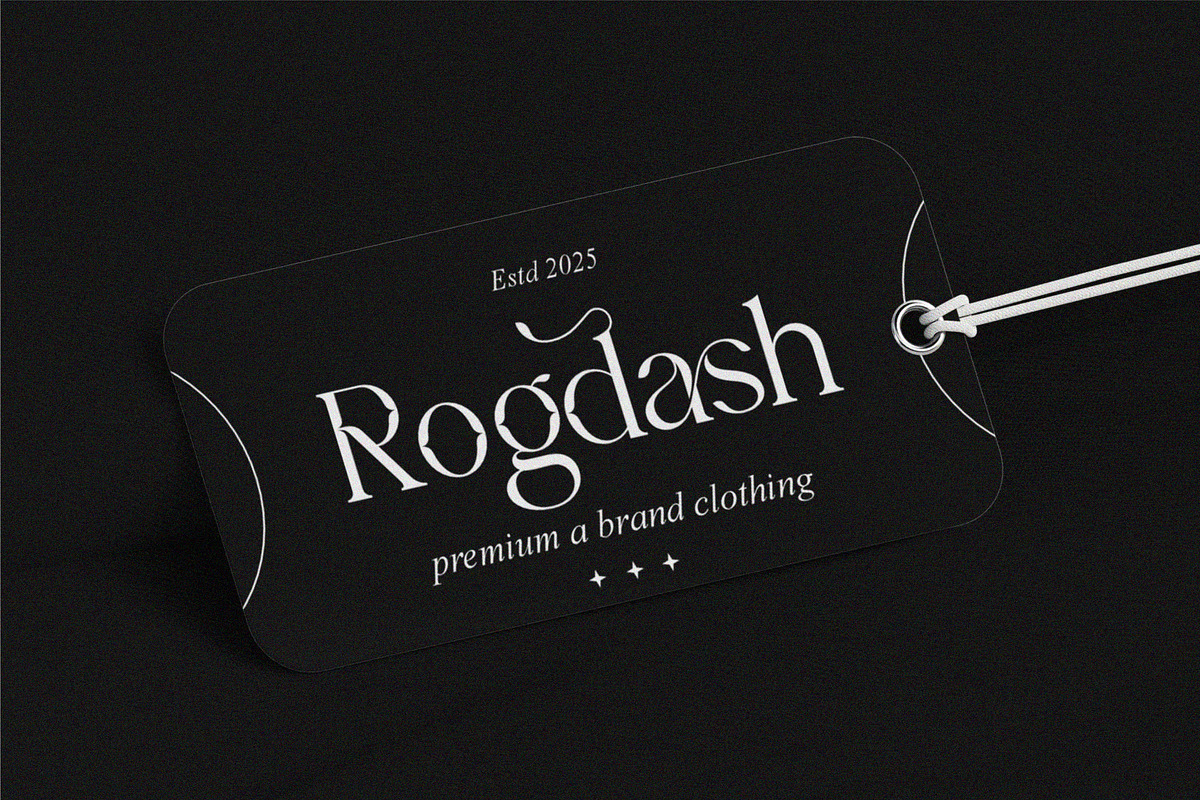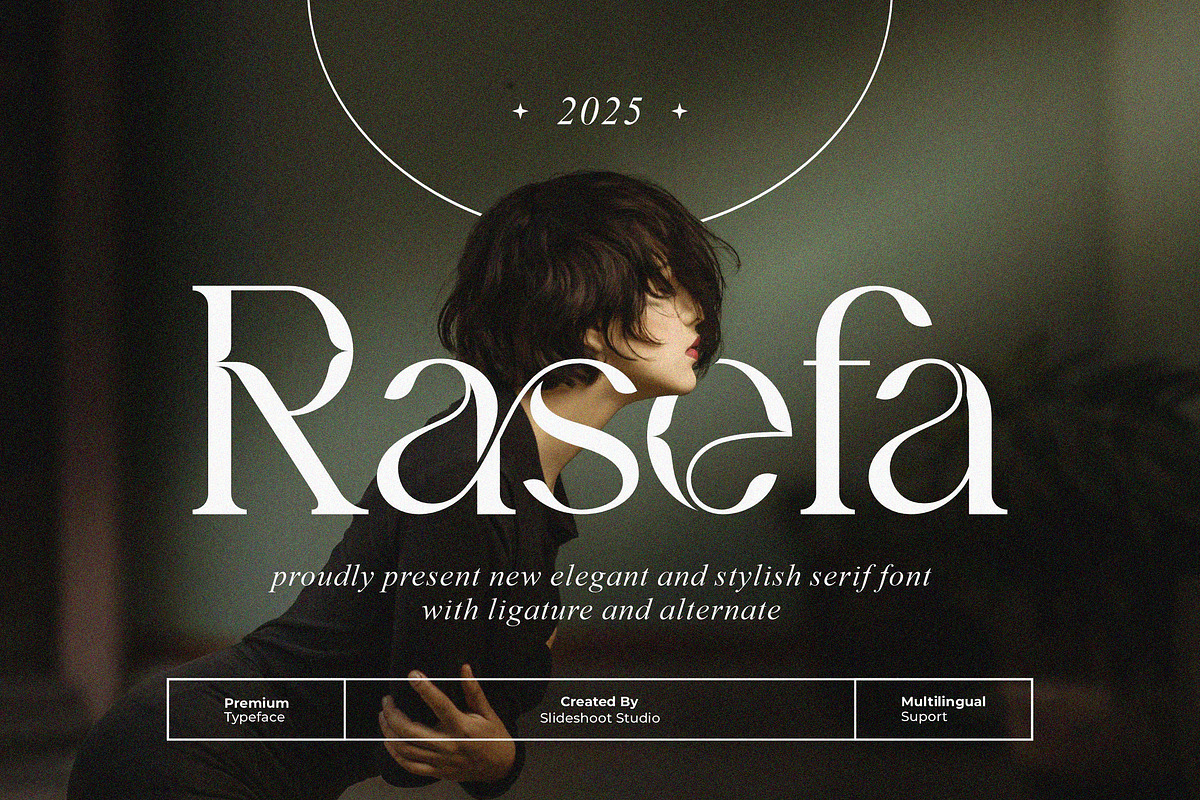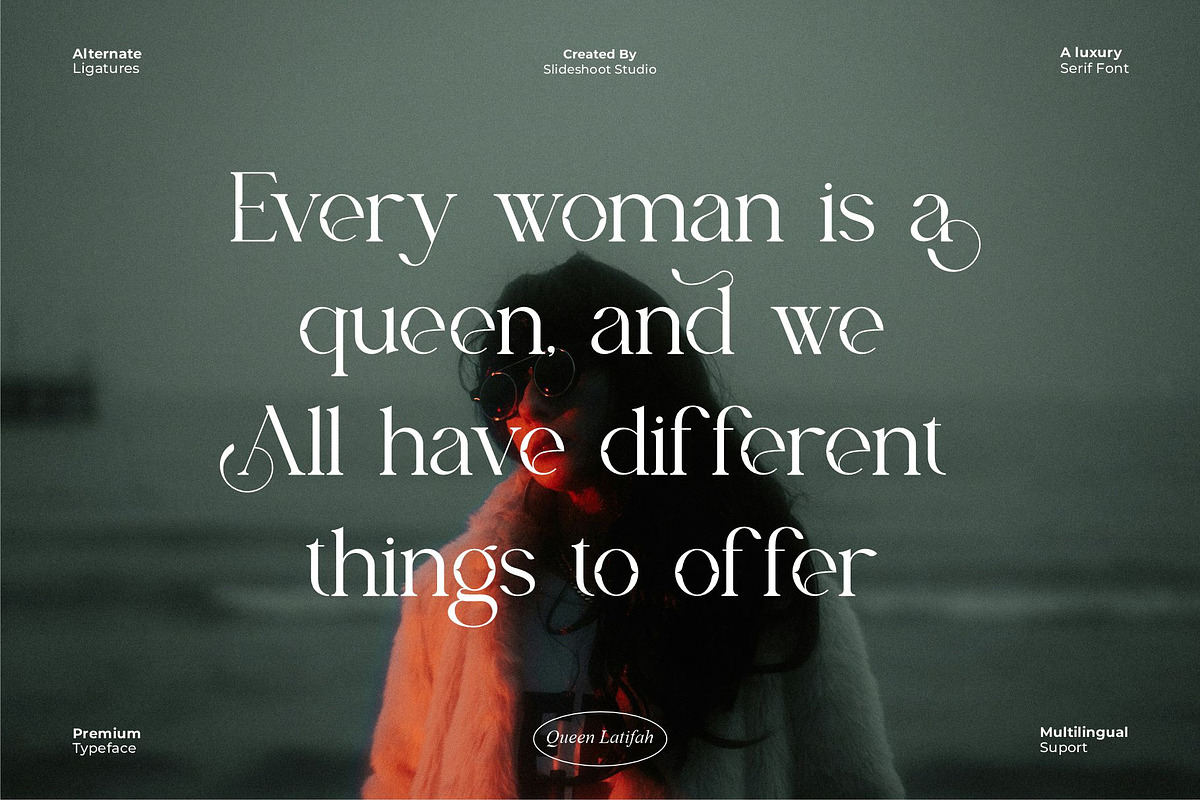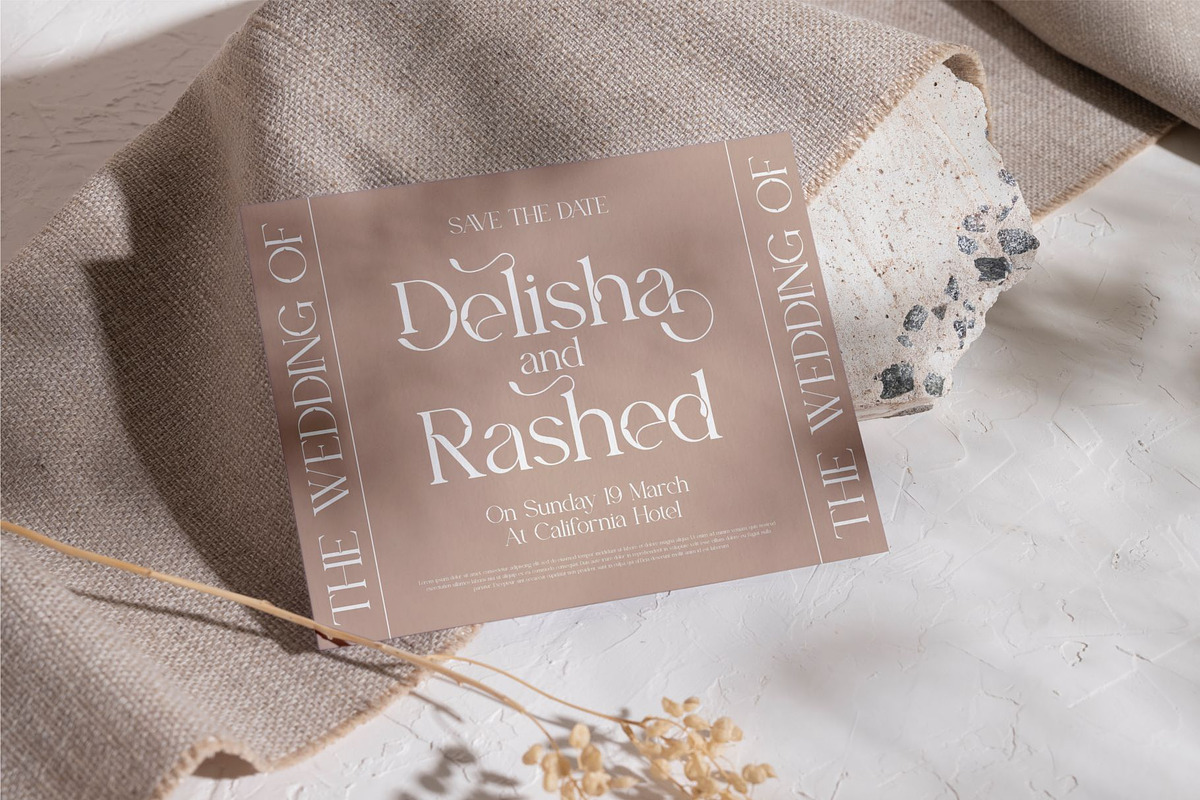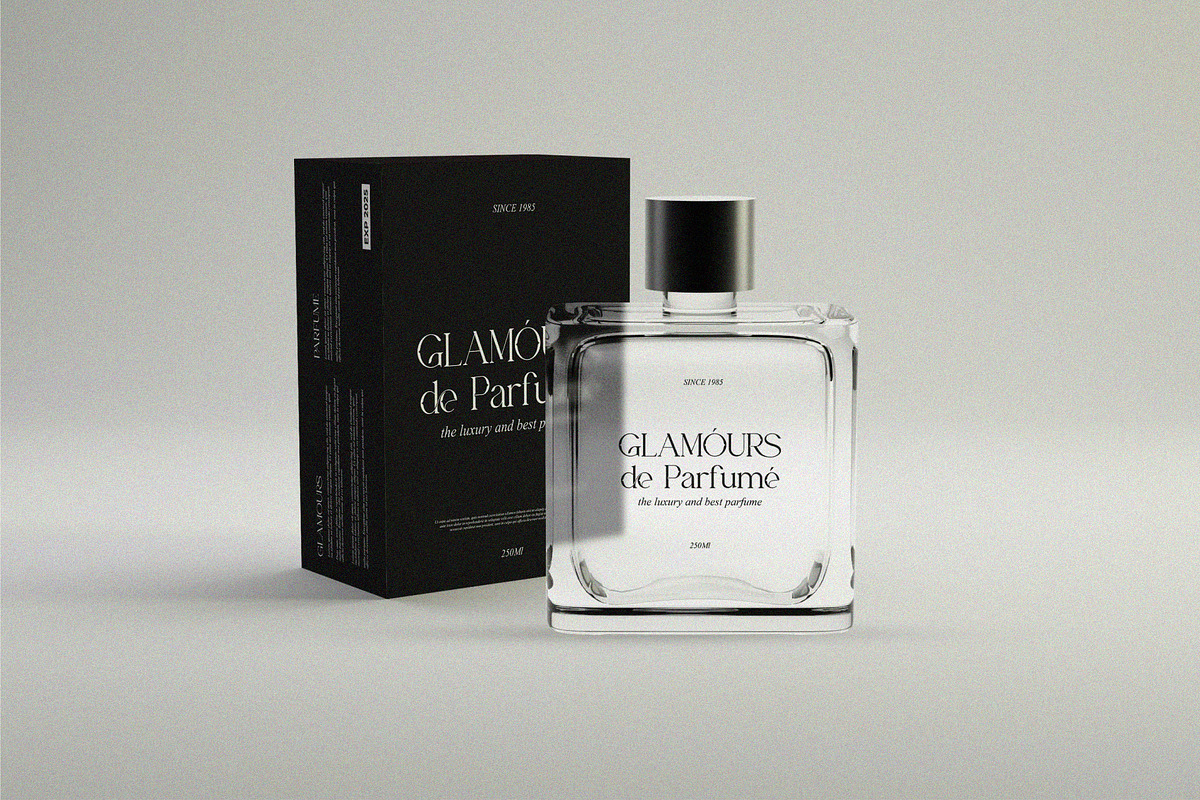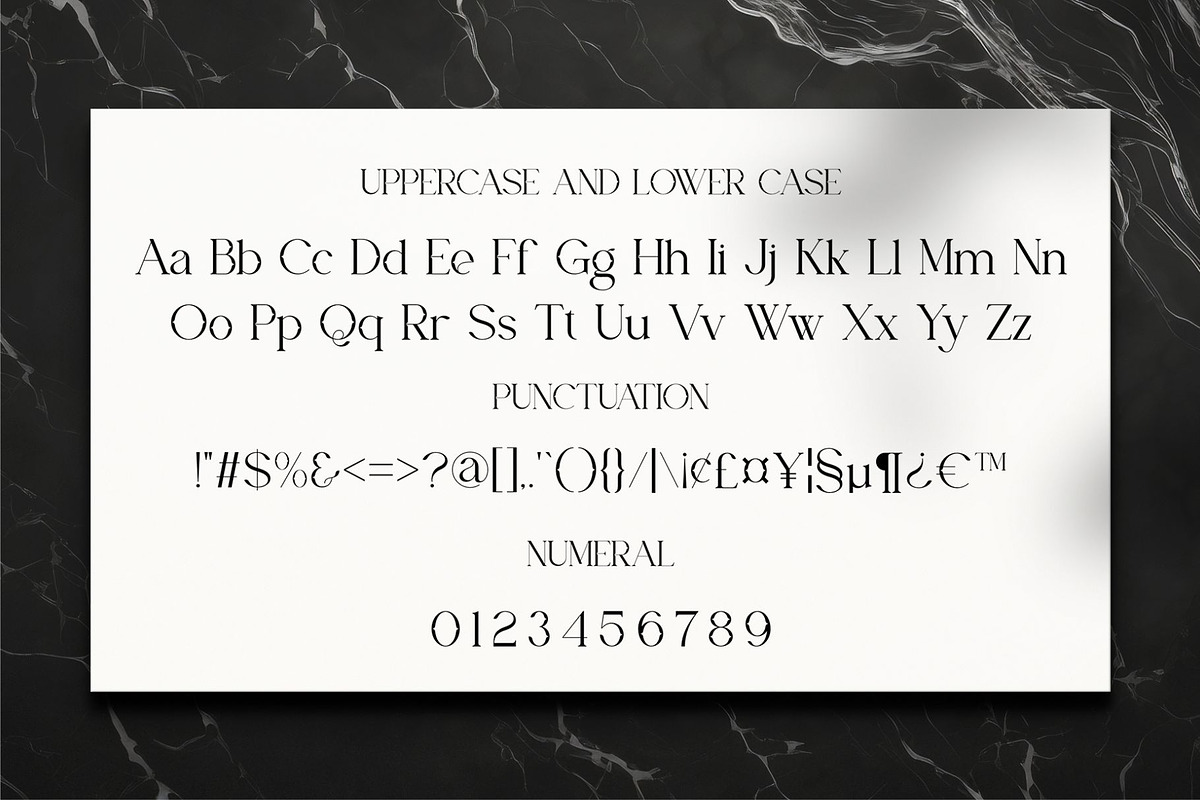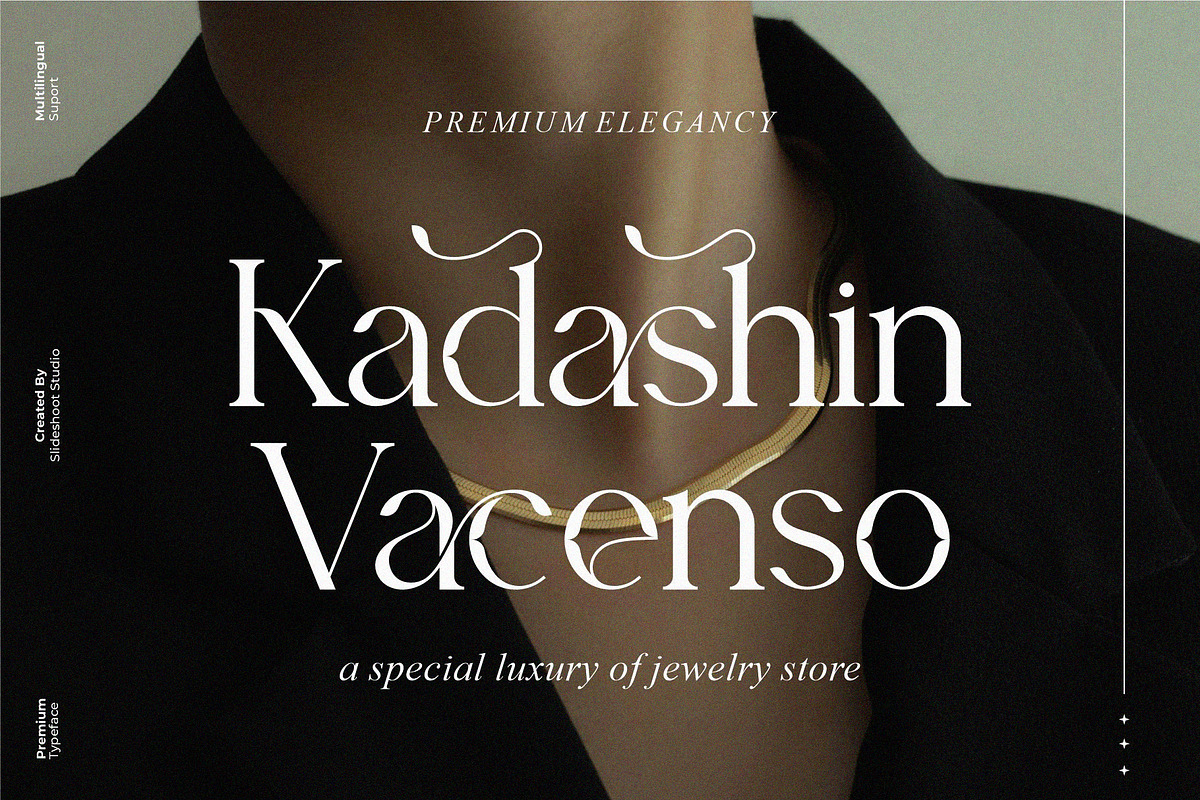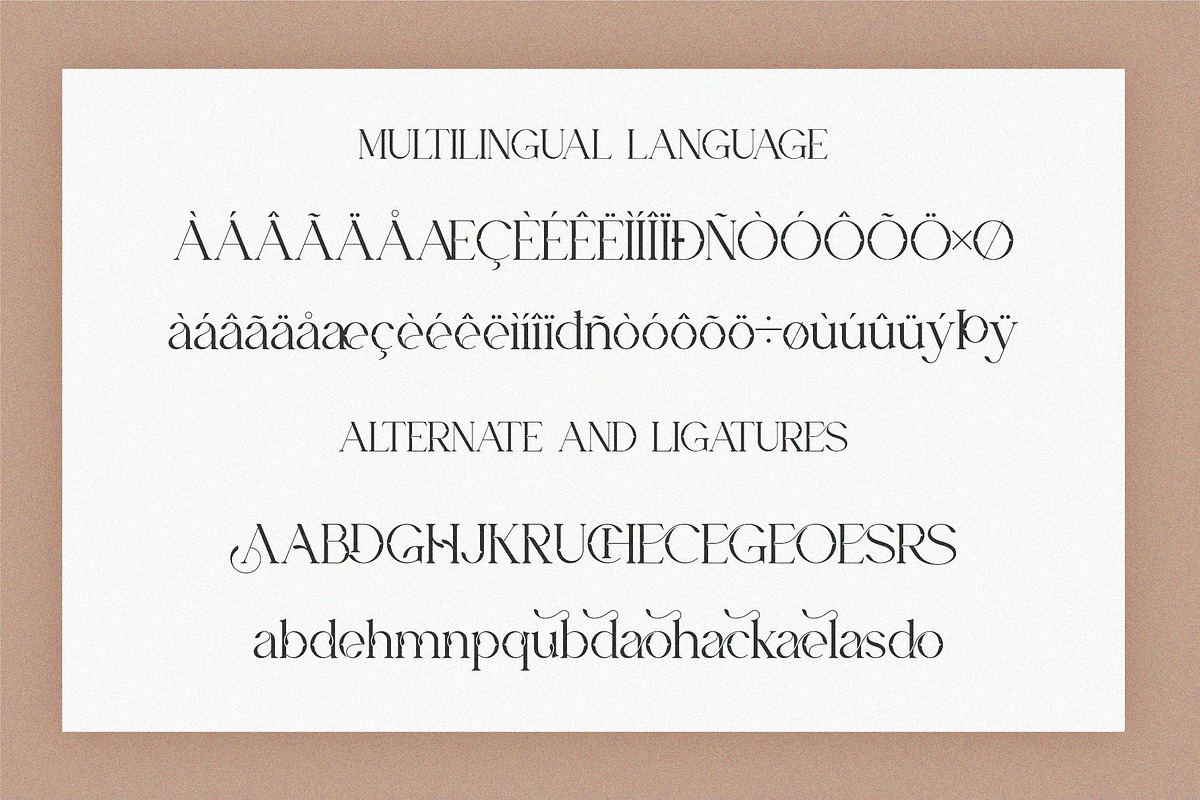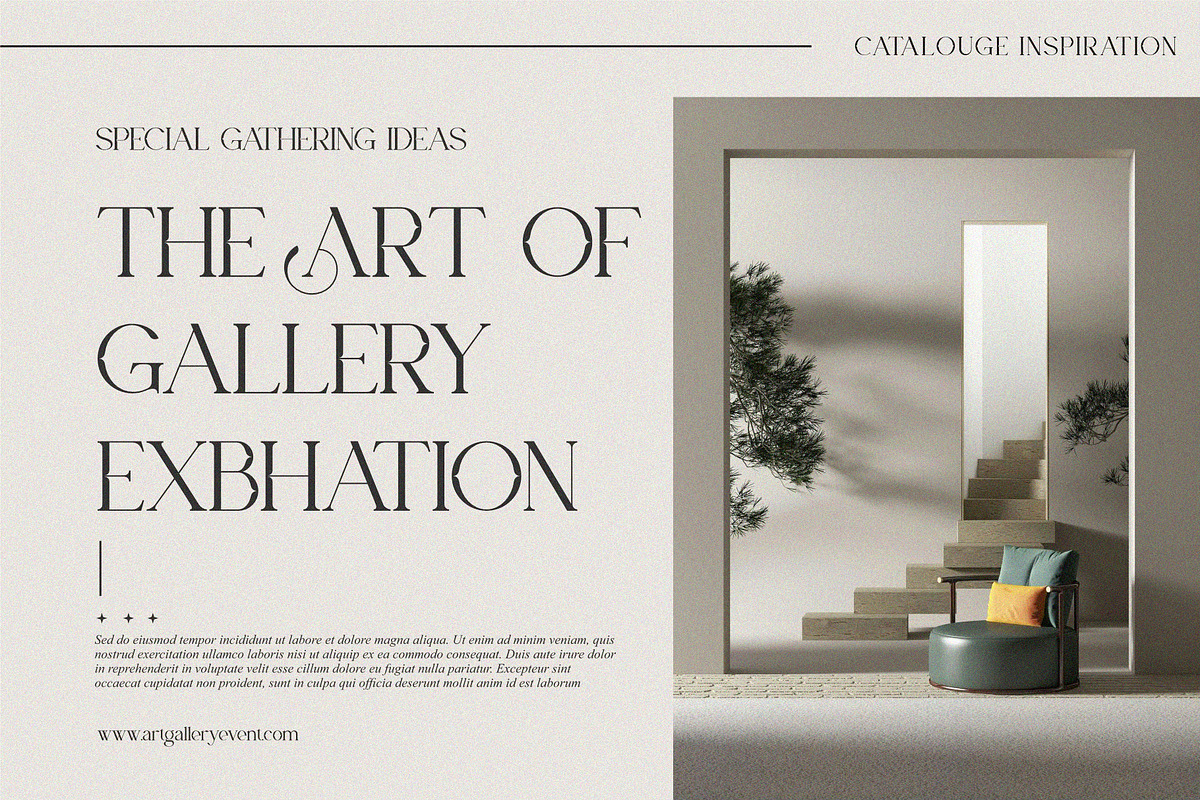
Rasefa || Vintage Serif Font
Rasefa Serif is a vintage and classy font type for all branding and logo designs. This vintage and classy Serif font has a beautiful character. This font is suitable for invitation card designs, cool logos, movie titles, movie names, business cards, book titles, brand names, and various other designs. Rasefa Serif is a smooth serif font that exudes sophistication and the moment. Its stylish alterations and ligatures make this font a perfect partner for any project.